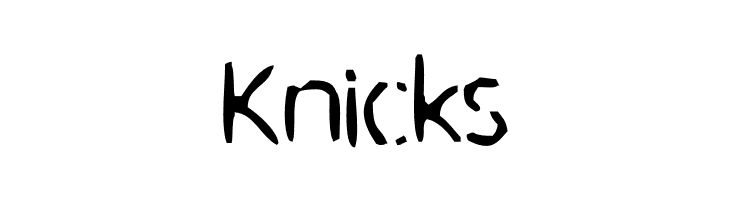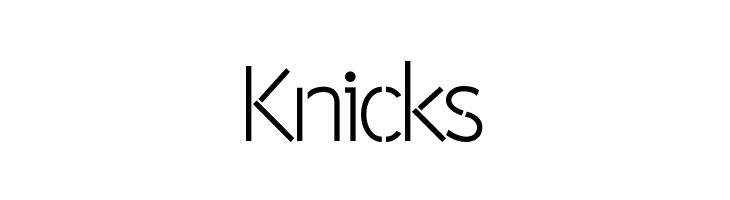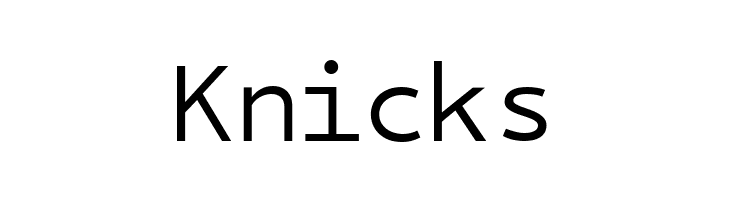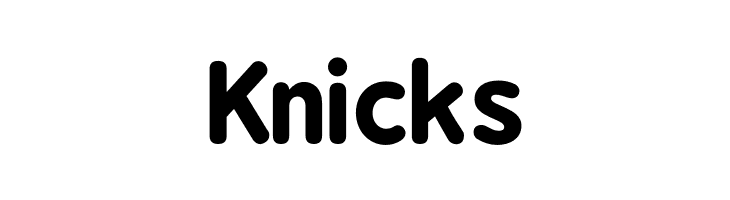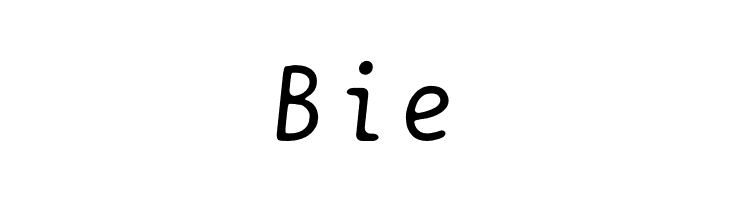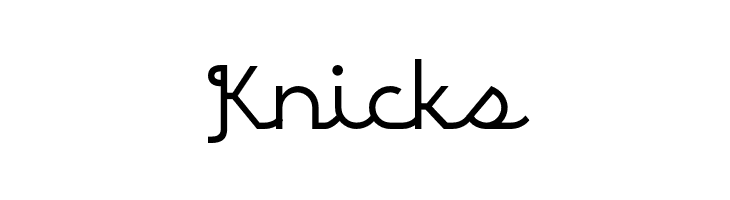
A clean, modern monospaced font with uniform character width and minimalist design.
A modern, geometric font with clean lines and consistent stroke width.
A bold, grunge-inspired font with irregular, hand-drawn strokes and a raw, edgy appearance.
A modern, rounded sans-serif font with clean lines and uniform strokes.
A bold, rounded font with smooth curves and even spacing.
A bold, italic font with rounded edges and a friendly, modern style.
A clean, modern italic font with a dynamic and sleek appearance.
A modern, playful font with rounded, flowing lines and distinctive loops.
A dripping, eerie font perfect for horror-themed designs.